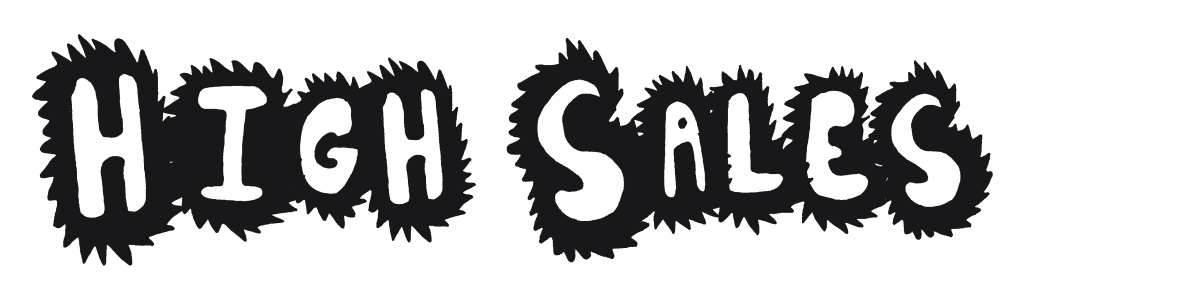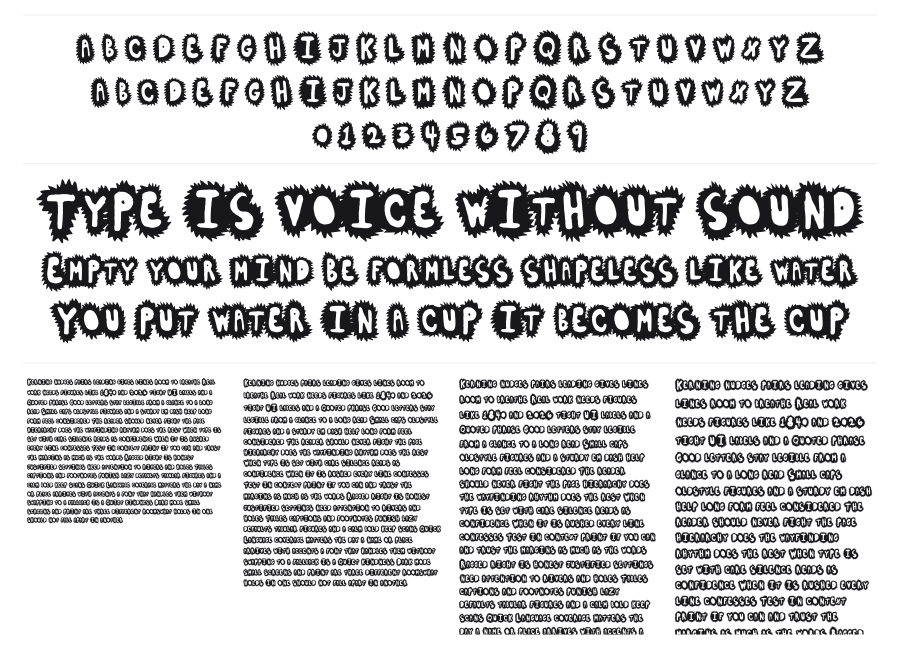
High Sales
High Sales is a heavy display font covered in sharp spikes, giving every letter the texture of a saw blade or wild fur. The rounded, chunky base forms are deliberately at odds with the chaotic jagged silhouette, which creates an intense visual tension that reads from across a room. It suits anything that needs a loud, untamed edge.